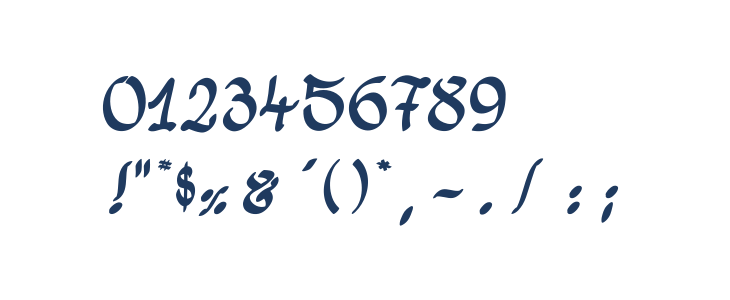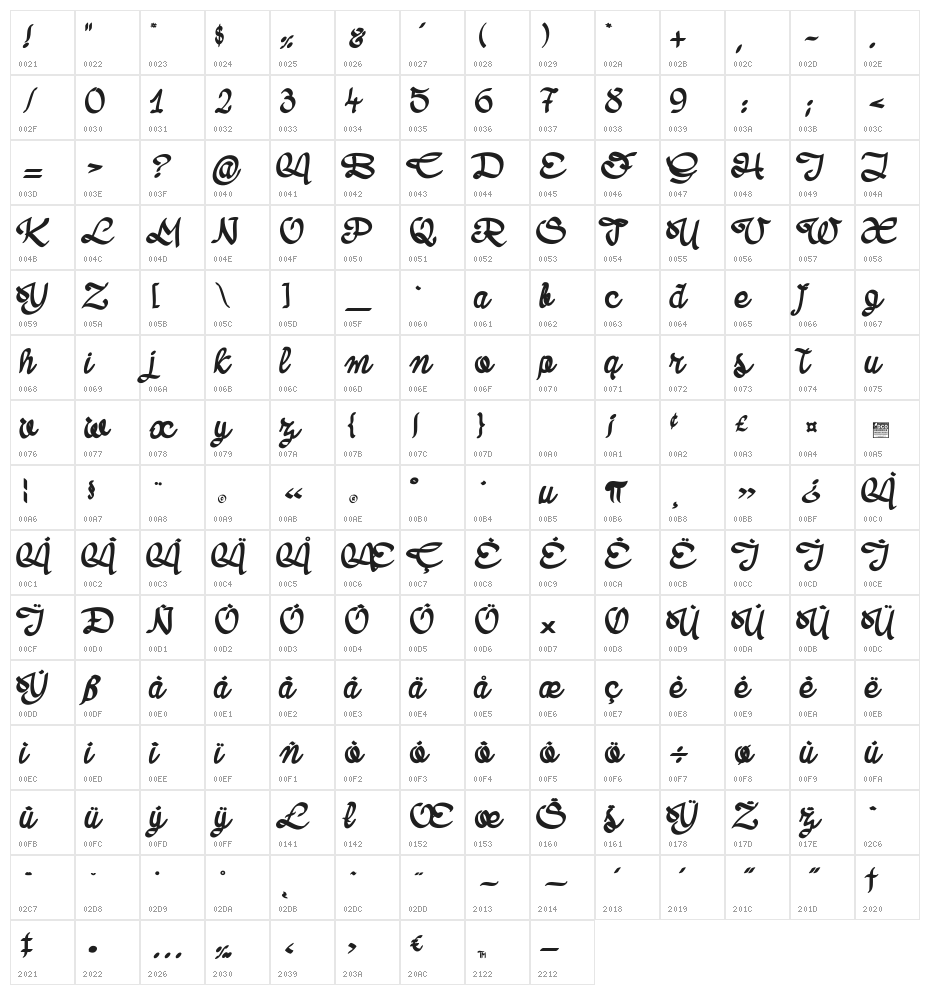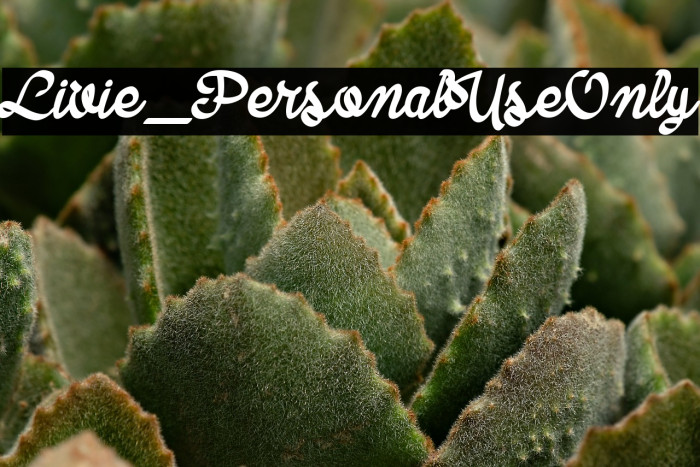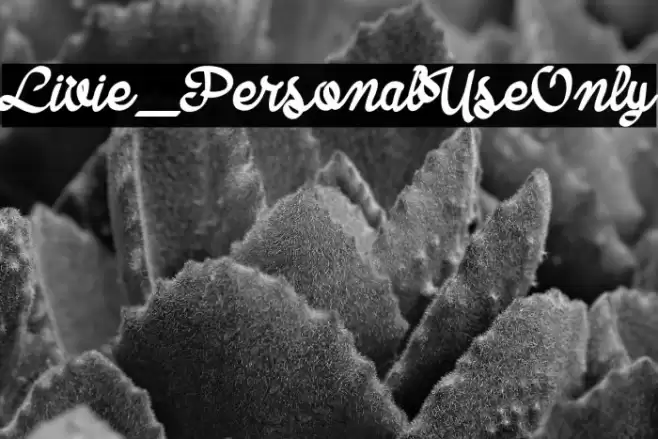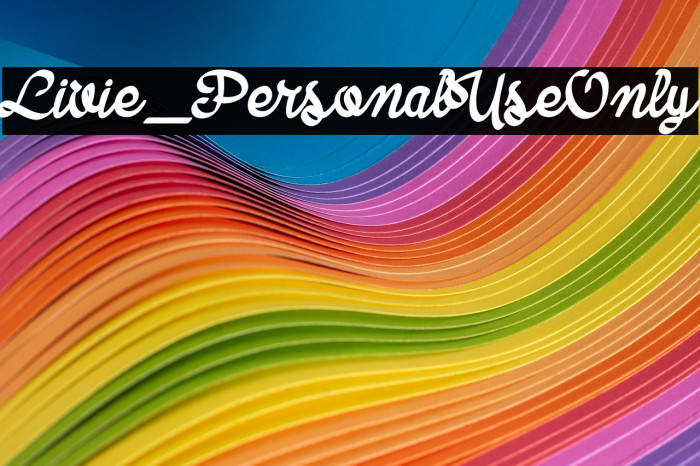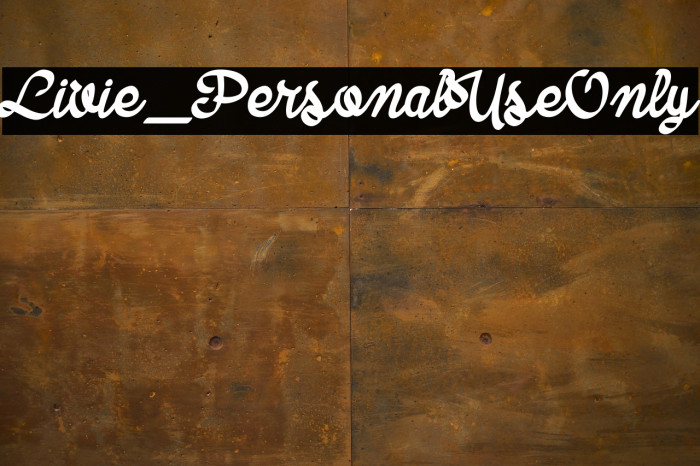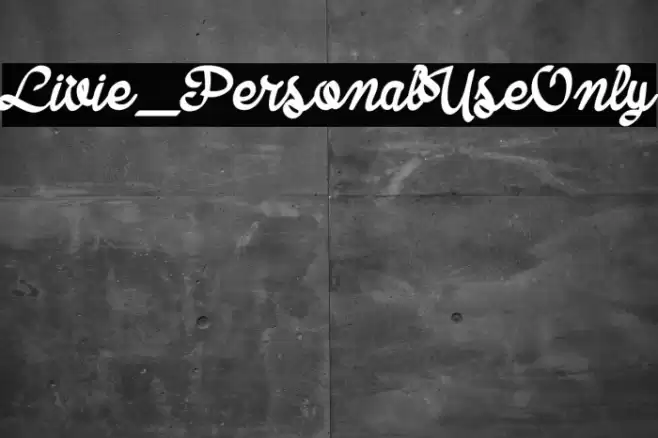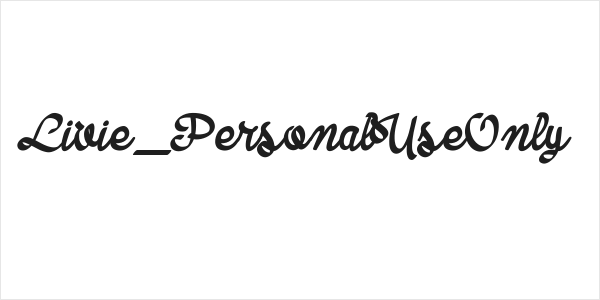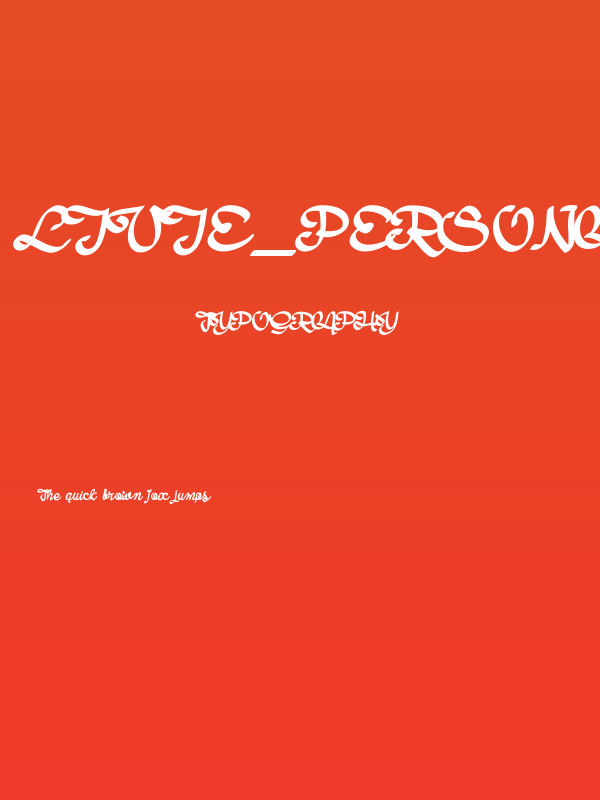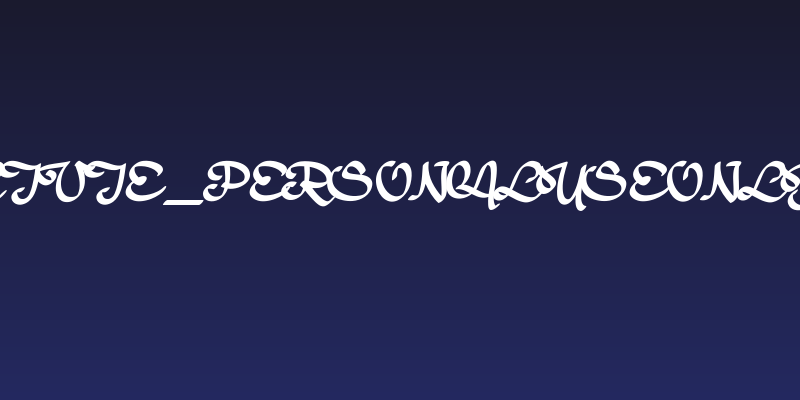
Livie_PersonalUseOnly Font
Livie_PersonalUseOnly Description
This font features a bold, flowing script style with a strong emphasis on cursive elements. The uppercase letters are intricately designed with loops and swirls, giving them a decorative and artistic appearance. The lowercase letters maintain a consistent flow, with smooth connections between characters, enhancing the cursive aesthetic. The numerals are equally stylized, with a playful yet elegant design that complements the overall script theme. Special characters are creatively integrated, maintaining the font's cohesive look. This font is ideal for projects that require a personal, handwritten touch, such as invitations, greeting cards, or branding materials.